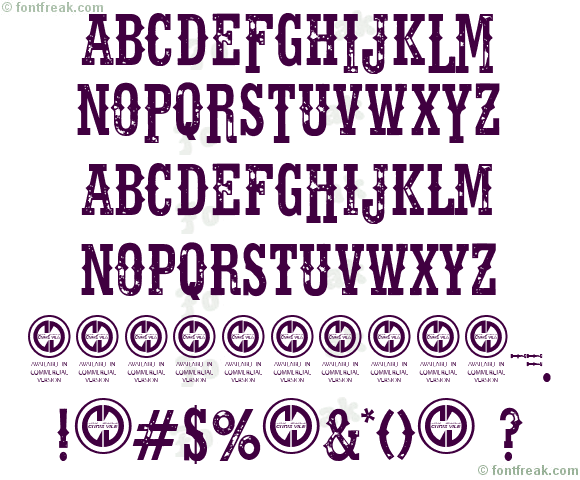
Fort Death
About Fort Death
The Fort Death font, designed by Chris Vile in 2016, is a striking display typeface that embodies a unique blend of decorative elements and a bold, rugged appearance. This freeware font stands out in the typography landscape with its distinctive character and style, making it an excellent choice for various creative projects. The font features a strong stroke weight with a substantial contrast, creating a commanding presence on any page. The spacing is thoughtfully designed to ensure readability while maintaining an artistic flair, with each letter exhibiting a slightly distressed texture that adds to its rugged charm.
Fort Death is ideal for a variety of use cases. Its bold and eye-catching design makes it perfect for movie posters, particularly in genres such as horror or action, where it can convey a sense of drama and urgency. Additionally, it is well-suited for event flyers, especially those promoting themed parties or festivals, where a striking visual impact is essential. The font can also enhance merchandise branding, giving products a memorable identity that resonates with consumers. Small business owners looking to create unique signage or packaging will find Fort Death an invaluable asset, as its distinctive style helps in standing out among competitors.